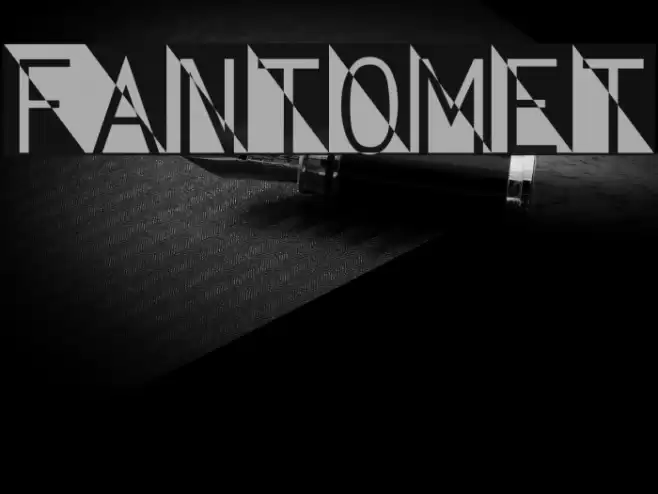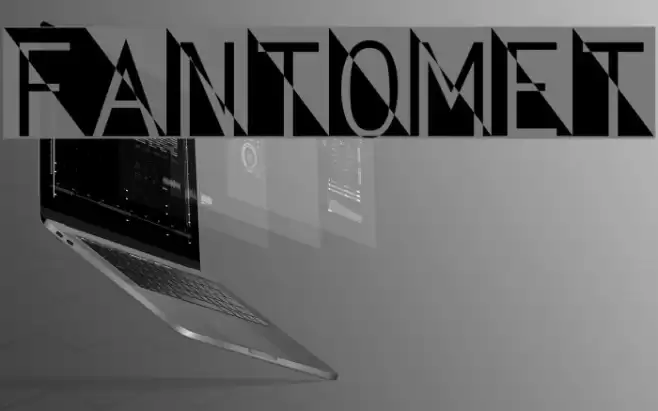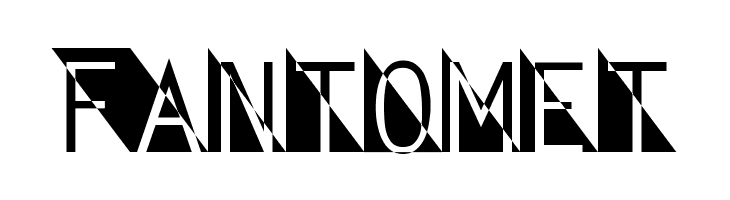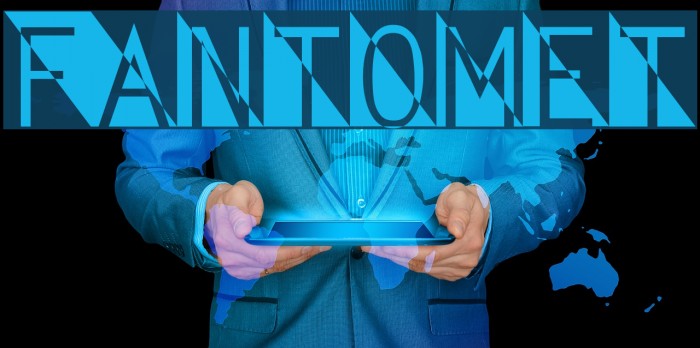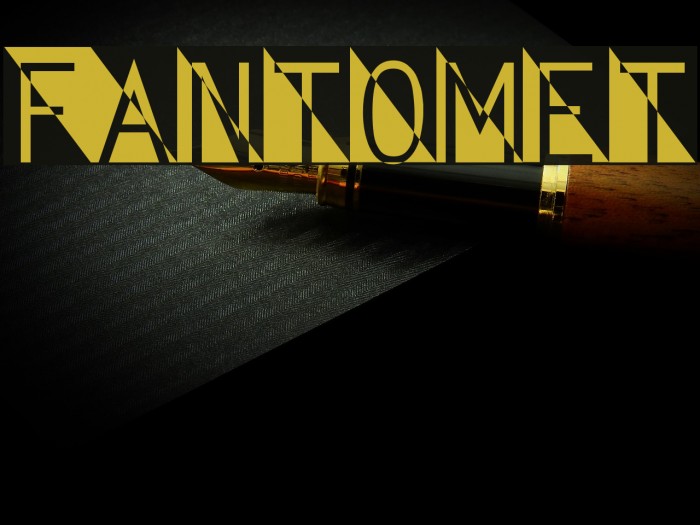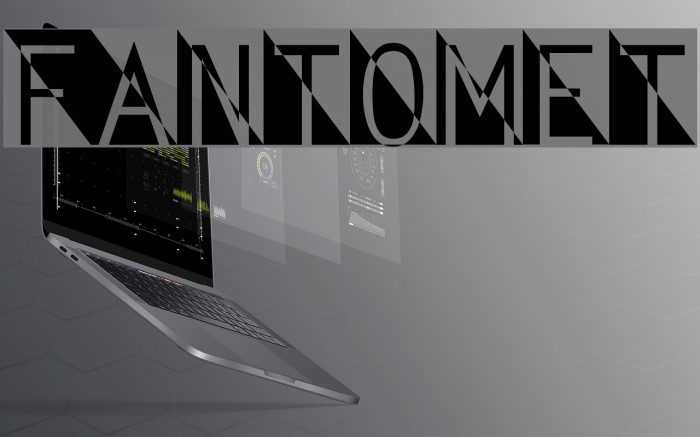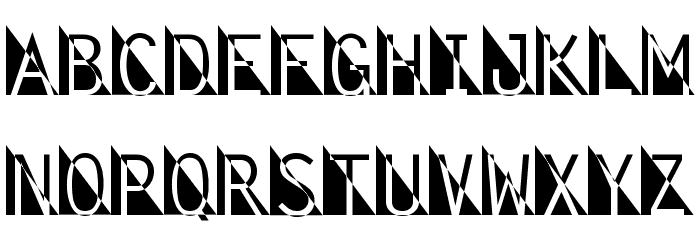
Fantomet Font
Fantomet Description
This font features a bold and geometric design with a distinctive use of negative space, creating a striking visual effect. The characters are constructed with sharp angles and a consistent thickness, giving it a modern and edgy appearance. The uppercase and lowercase letters maintain a uniform style, while the numbers and special characters follow the same geometric pattern, ensuring a cohesive look across all elements. The font's unique style makes it stand out, making it ideal for projects that require a bold statement.
A bold, geometric font with striking use of negative space from Decorative fonts.
- Proposed Projects: Ideal for branding, posters, and modern graphic design projects.